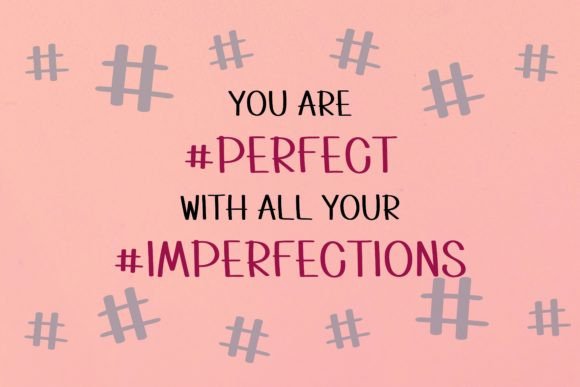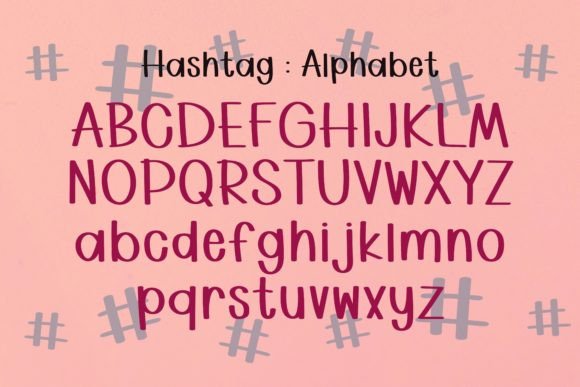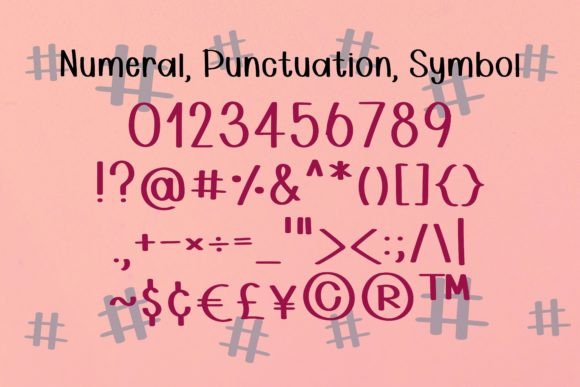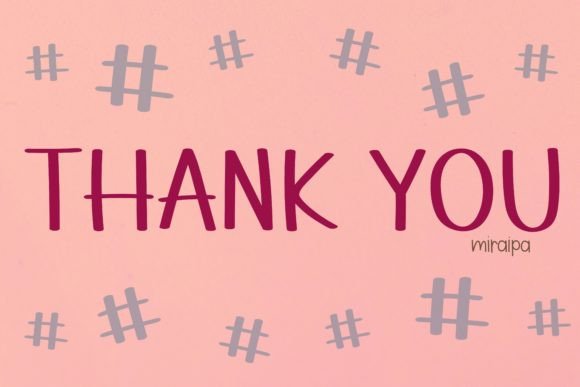
Introducing Hashtag Font: The Friendly Sans Serif Style for All Your Design Needs
Are you a designer, crafter, or DIY enthusiast looking for the perfect font to add a friendly touch to your projects? Look no further than Hashtag Font! Designed in a friendly sans serif style, Hashtag Font is the ideal choice for a wide range of applications, from planners and back-to-school projects to weddings, party decorations, and social media posts.
What Makes Hashtag Font So Special?
Hashtag Font is more than just a font – it’s a versatile tool that can bring any DIY project to life. Its friendly sans serif style makes it perfect for designs that require a personal touch, such as:
• Planners and organizers: Add a touch of friendliness to your planners and organizers with Hashtag Font.
• Back-to-school projects: Make your child’s school projects stand out with this fun and approachable font.
• Weddings and parties: Use Hashtag Font to create beautiful wedding invitations, party decorations, and more.
• Halloween and Christmas: Get into the holiday spirit with Hashtag Font’s playful and festive vibe.
• Posters and blogs: Add a friendly touch to your posters, blogs, and social media posts.
• Clothing and child-related designs: Use Hashtag Font to create adorable designs for kids’ clothing and accessories.
• Greeting cards and social media posts: Make your greeting cards and social media posts more engaging with Hashtag Font.
The Benefits of Using Hashtag Font
So why choose Hashtag Font over other fonts? Here are just a few benefits:
• Easy to read: Hashtag Font is clear and easy to read, making it perfect for designs that require a lot of text.
• Versatile: Hashtag Font can be used for a wide range of applications, from formal to informal designs.
• Fun and playful: Hashtag Font adds a touch of friendliness and playfulness to any design.
• Perfect for DIY projects: Hashtag Font is designed to help you create beautiful DIY projects that stand out.
How to Use Hashtag Font
• Pair it with other fonts: Hashtag Font pairs well with other sans serif fonts, so feel free to experiment with different combinations.
• Use it in headings and body text: Hashtag Font is perfect for both headings and body text, making it a great all-around font.
• Experiment with colors: Hashtag Font looks great in a variety of colors, so don’t be afraid to try out different color schemes.